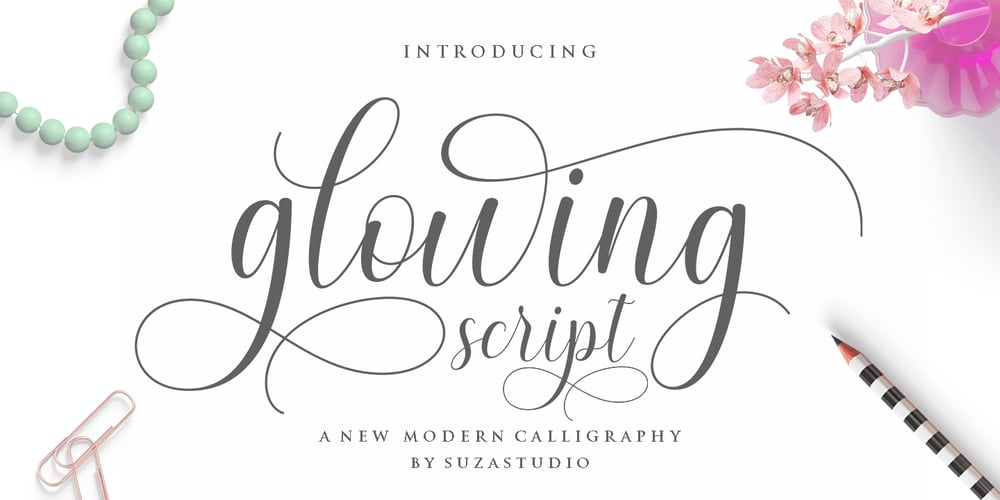
Glowing Script Font Family was designed by Zikrillah and published by Suza Studio. Glowing Script contains 1 styles and family package options. Glowing Script is a romantic and sweet calligraphy typeface with characters that dance along the baseline. It has a casual and yet elegant touch. It can be used for various purposes such as logos, wedding invitations, headings, t-shirts, letterhead, signage, labels, news, posters, badges etc.The fonts include OpenType features with stylistic alternates, ligatures and multiple language support.To enable the OpenType Stylistic alternates, you need a program that supports OpenType features such as Adobe Illustrator CS, Adobe Indesign & CorelDraw X6-X7, Microsoft Word 2010 or later versions.There are additional ways to access alternates/swashes, using Character Map (Windows), Nexus Font (Windows), Font Book (Mac) or a software program such as PopChar (for Windows and Mac).How to access all alternative characters, using Windows Character Map with Photoshop: https://www.youtube.com/watch?v=Go9vacoYmBwHow to access all alternative characters using Adobe Illustrator:http://youtu.be/iptSFA7feQ0How to use stylistic sets font in Microsoft Word 2010 or later versions:https://youtu.be/x1A_ilsBsGs